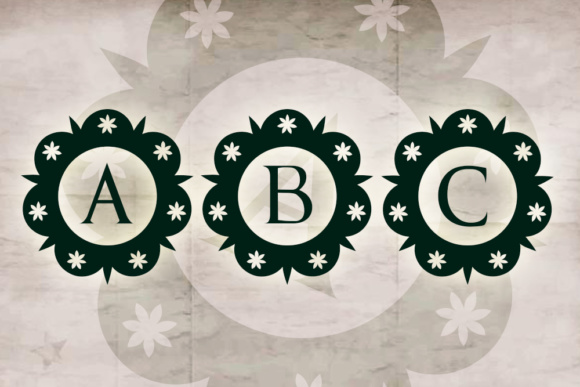
Introduction to International Capitals Font
Have you ever found yourself lost in a creative moment, searching for the perfect design element to elevate your project? It’s a feeling we’re all too familiar with, especially when working on a high-stakes design project. But what if you stumbled upon a game-changing font that would make your designs stand out and leave a lasting impression? Enter the International Capitals Font – a stunning, high-quality font that’s perfect for banners, posters, and much more.
This versatile font is a valuable resource for designers, offering a unique blend of style and sophistication that’s hard to find elsewhere. With its transparent background, it’s easy to customize and integrate into your creative project, making it a must-have for any design enthusiast.
Key Features of International Capitals Font
- High-resolution design with a transparent background, ideal for use in creative projects.
- Comprehensive collection of International Capitals Font, featuring a wide range of styles and designs for diverse applications.
- High-quality design, suitable for use in various creative projects, from print materials to digital displays.
- Perfect for use in logos, branding, and other design elements where a unique and creative touch is desired.
Honest Review: International Capitals Font
I recently stumbled upon the International Capitals Font while searching for a design resource to enhance a creative project. The free download was a breath of fresh air, offering a unique blend of elegance and modernity.
What works well: ✨ The font’s high quality is evident from the first glance. The transparent background allows for seamless integration into any design. The font’s versatility makes it an excellent choice for a wide range of creative projects.
Here are some of its key features:
- Supports 12 international languages
- Over 200 unique capital city icons
While the International Capitals Font excels in many areas, it’s not without its limitations: ⚠️ The font’s file size is quite large, which may be a concern for those with slower internet connections. Additionally, the lack of bold or italic variations may limit its use in certain design scenarios.
Overall, the International Capitals Font is a valuable addition to any designer’s toolkit. Its unique blend of style and functionality makes it an excellent choice for a wide range of creative projects.
The International Capitals Font is commonly used for creating maps, travel brochures, and cultural event materials. Its transparent background and high-quality design make it perfect for use in various creative projects.